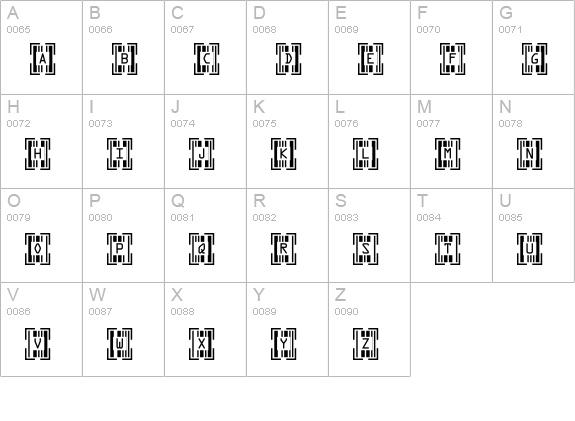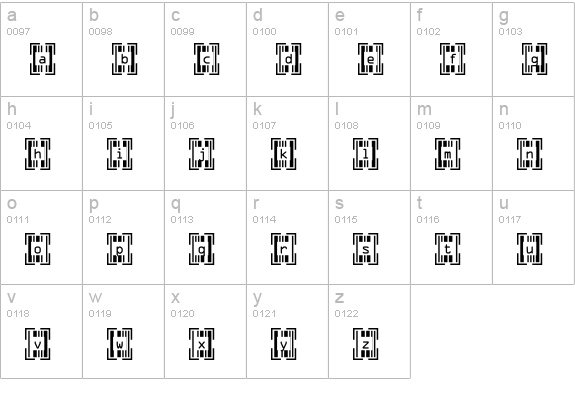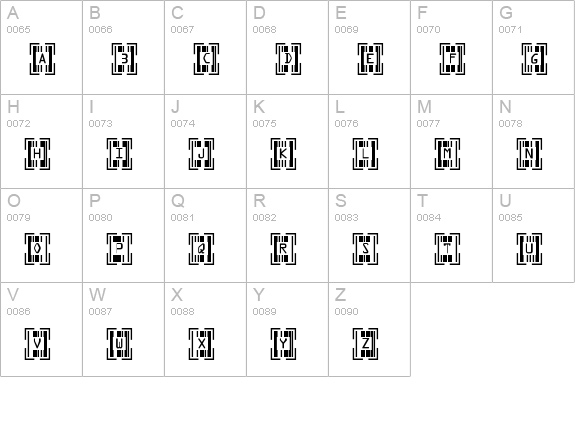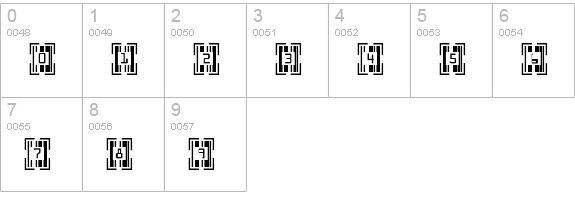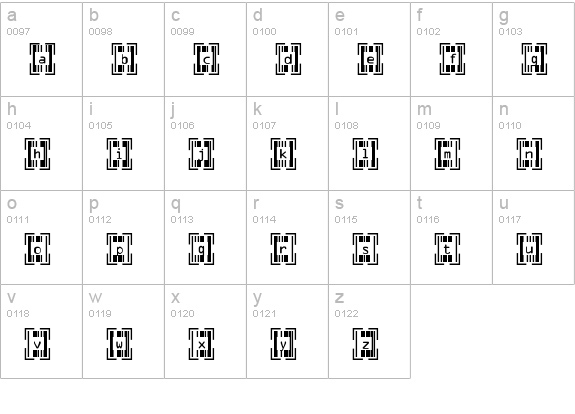
Recognition Font Details
Introducing Recognition font, a striking typeface that combines elegance with modernity. With its unique and eye-catching design, Recognition font is perfect for any project that requires a touch of sophistication and professionalism. What sets Recognition font apart is not just its stunning aesthetics, but also its accessibility. It is freely available to download at FontsMarket.com, making it a valuable asset for designers, creatives, and enthusiasts alike. Designed with versatility in mind, Recognition font is suitable for a wide range of applications, from branding and advertising to editorial design and web graphics. Its clean and legible letterforms ensure optimal readability, while its subtle yet distinctive details add a touch of elegance to any composition. Whether you are working on a logo, a magazine layout, or a website, Recognition font is sure to make a lasting impression. Its carefully crafted curves and well-balanced proportions make it a versatile choice for both headlines and body text, allowing you to create harmonious and visually appealing designs. In addition to its aesthetic appeal, Recognition font also offers a wide range of weights and styles, giving you the flexibility to create unique and cohesive typographic compositions. From light and delicate to bold and impactful, Recognition font has a weight for every design need. So why wait? Experience the beauty and versatility of Recognition font today. Download it for free at FontsMarket.com and unlock endless possibilities for your next design project.